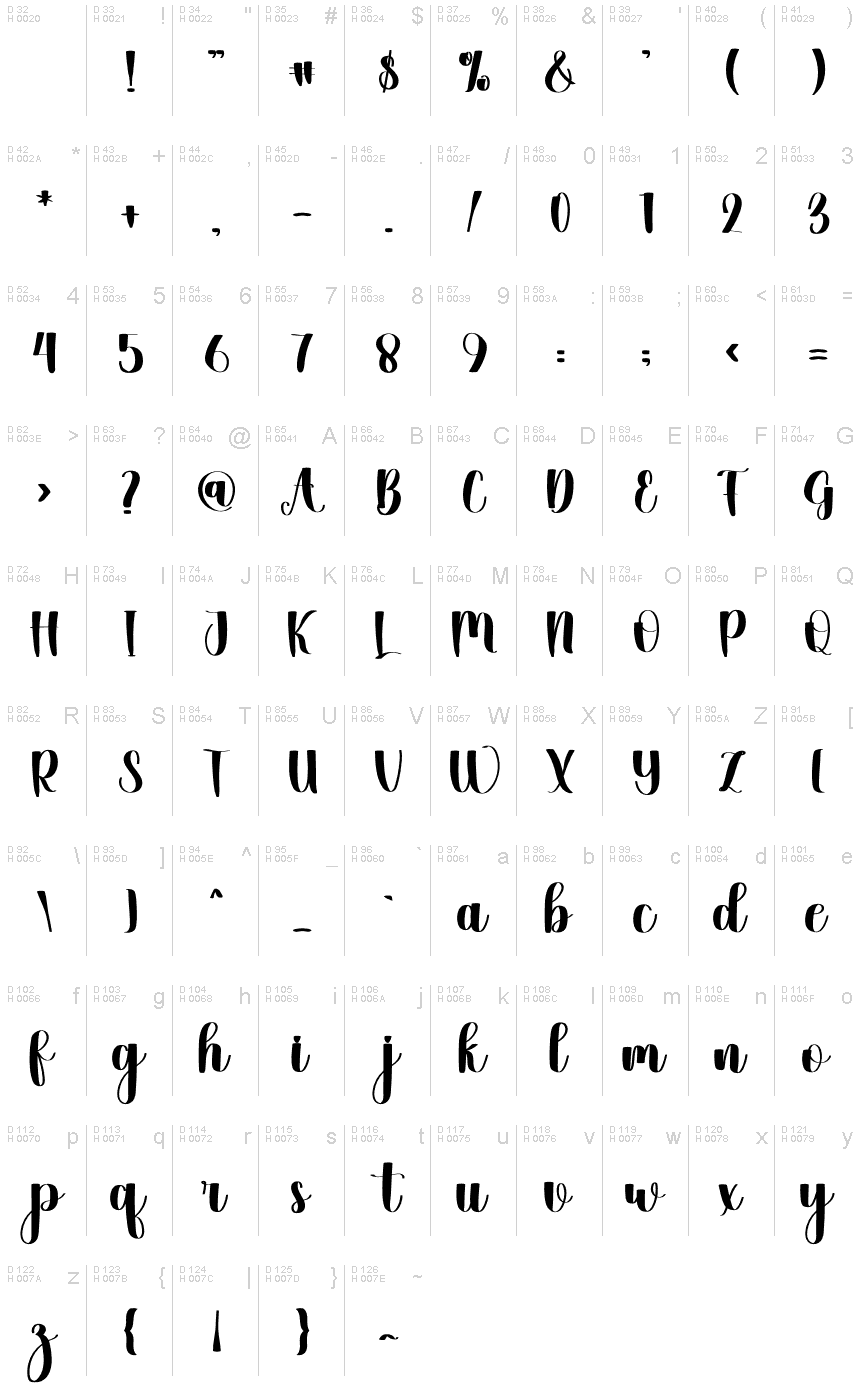
Culture
Culture, a bold script font by FreshtypeINK, is the perfect choice for projects that require a touch of elegance and sophistication. With its sleek and flowing lines, this font adds a sense of class to wedding invitations, high-end fashion magazines, or luxury brand logos. Its bold weight ensures that your message stands out while maintaining readability. Whether you are designing restaurant menus or creating branding materials for upscale events, Culture will captivate your audience with its refined charm and timeless appeal. Elevate your designs with this stunning typeface that exudes style and grace.